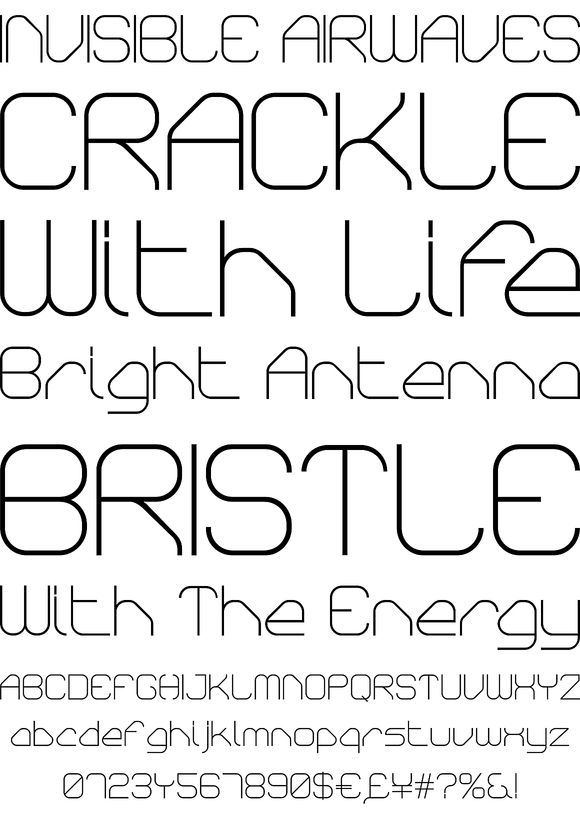
Foundry: The Northern Block
A linear modern typeface with smooth corners and offset angles. The intention was to create a font that combines unique character styling with simple functionality. The typeface is suited for variety of graphic design applications including print, web, motion, t-shirts and apparel. This extensive family includes 8 weights with italics, a full character set, manually edited kerning and Euro symbol.